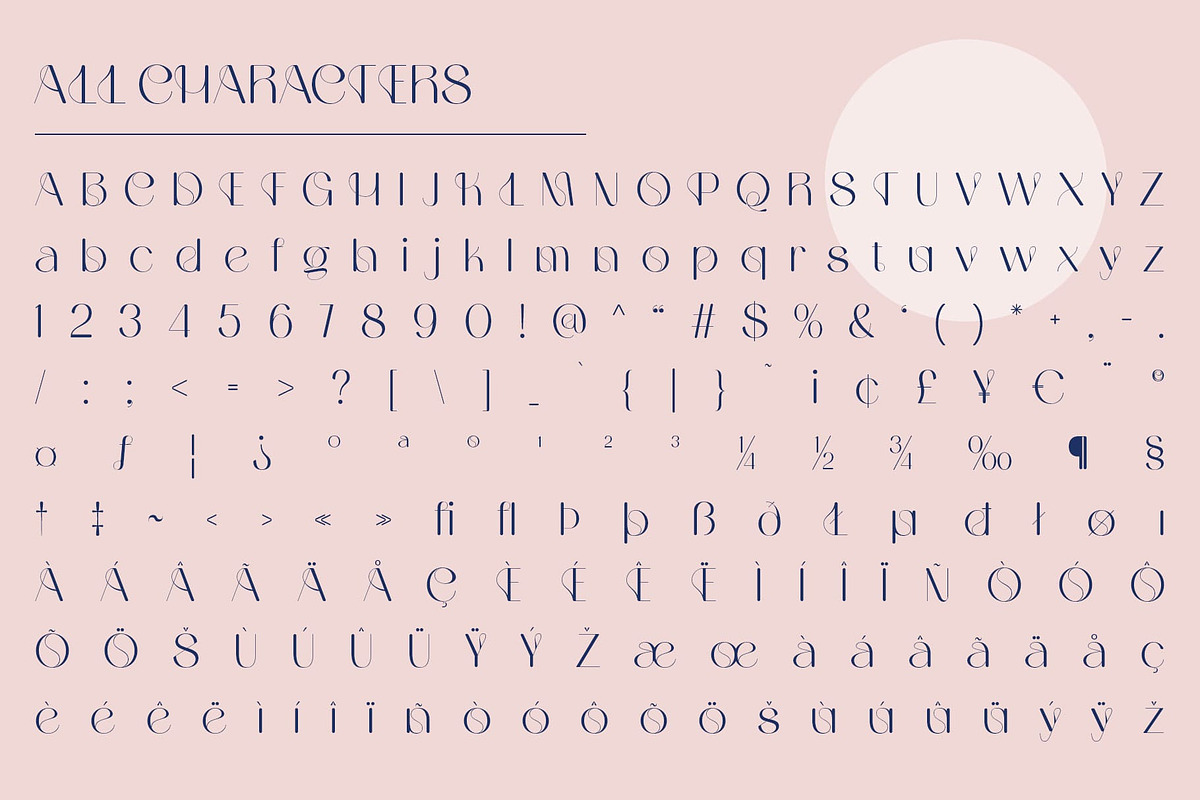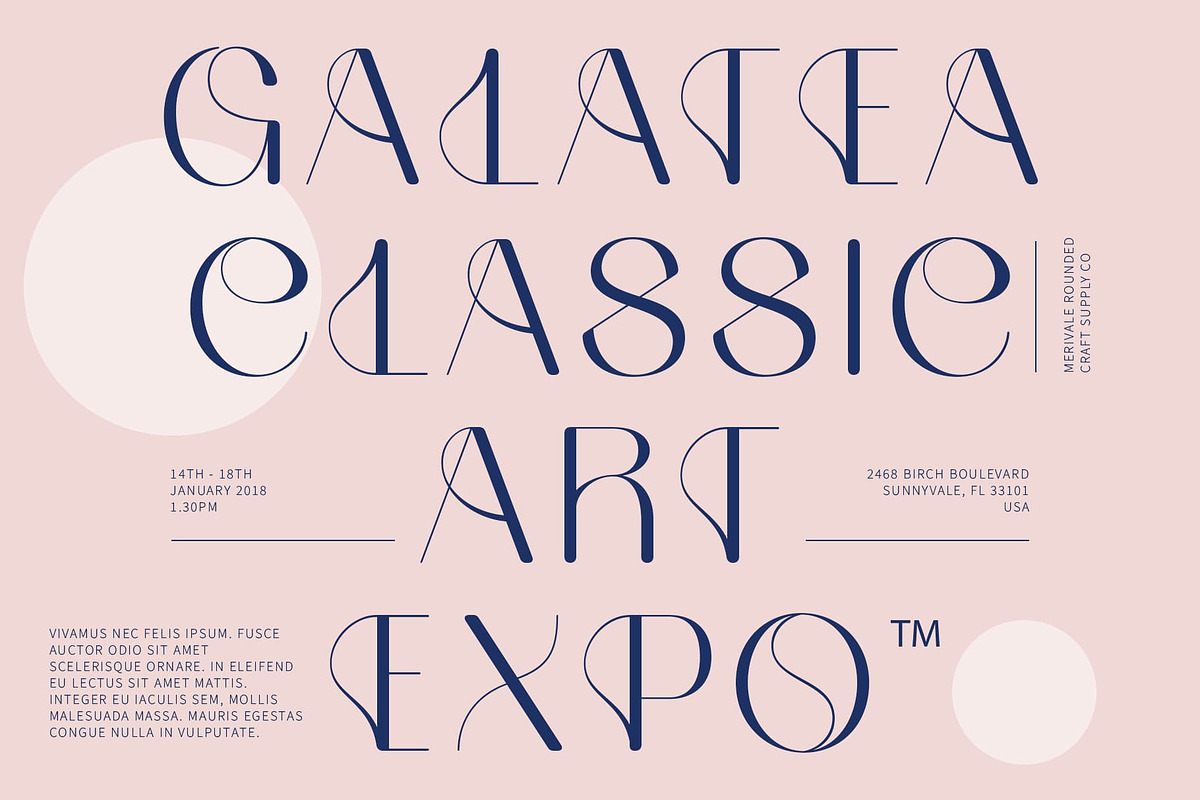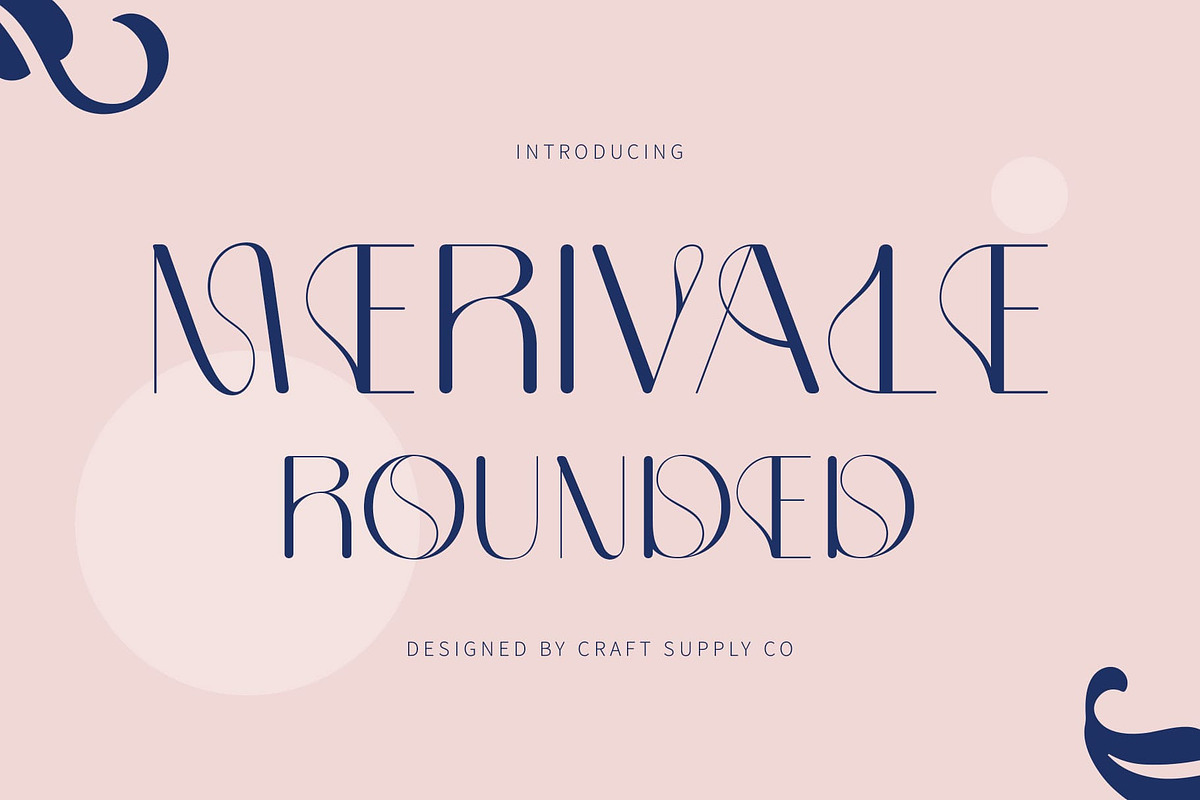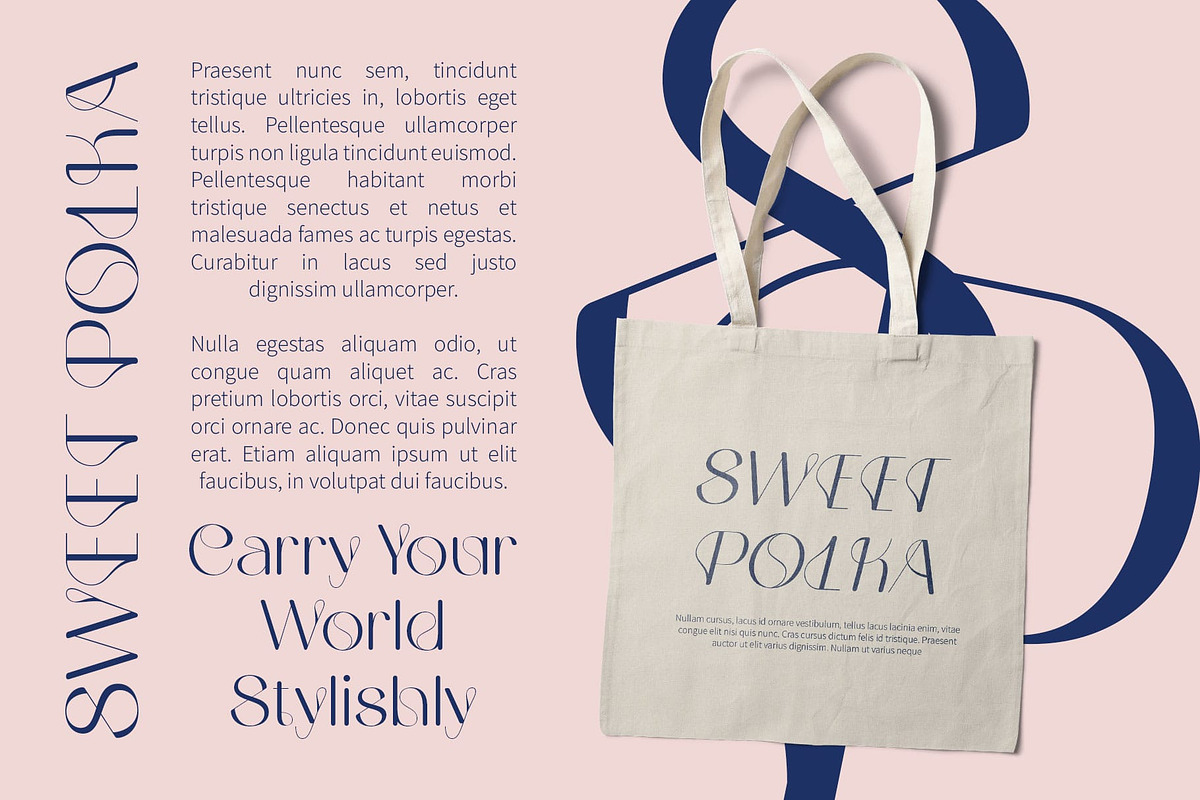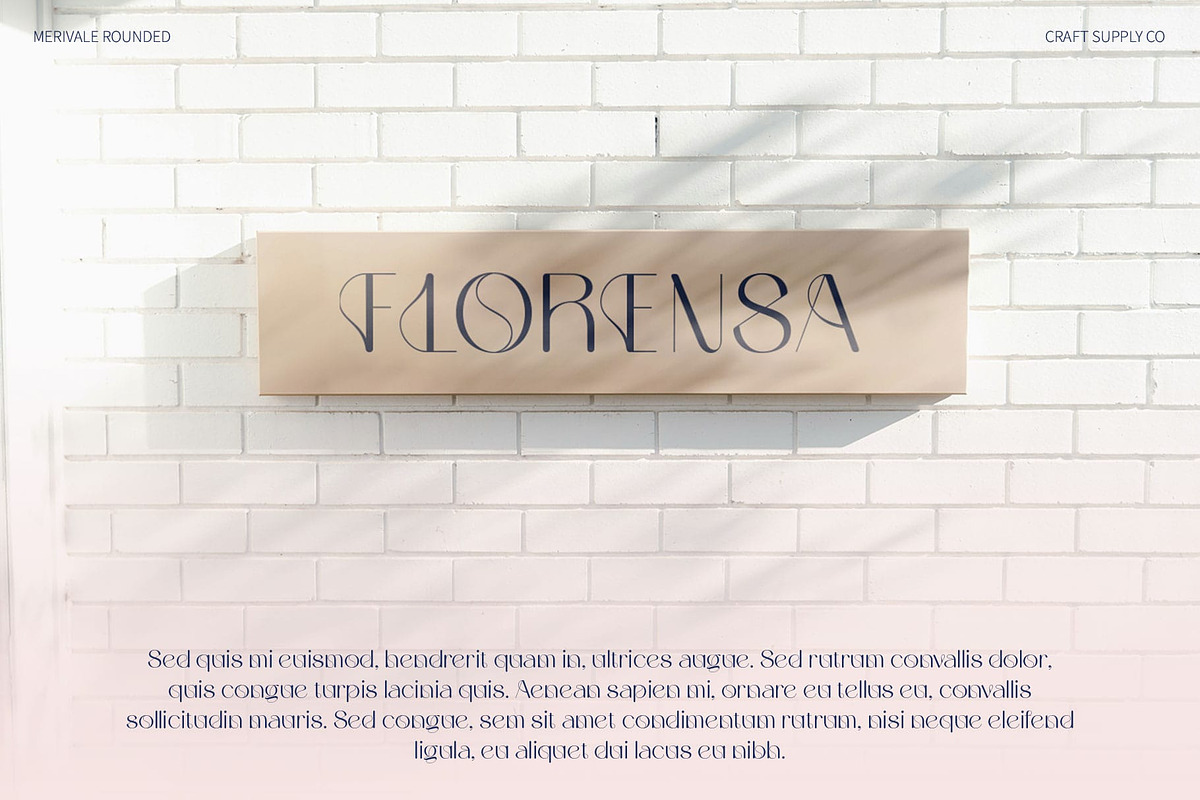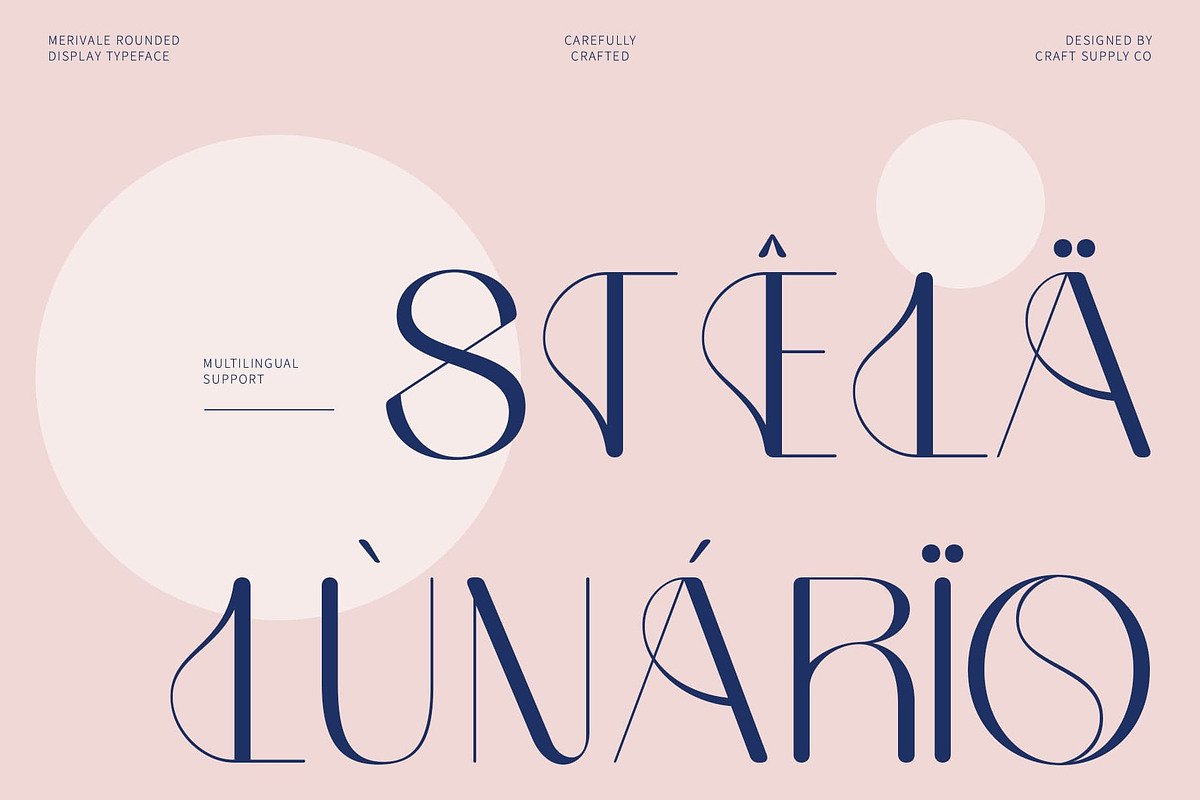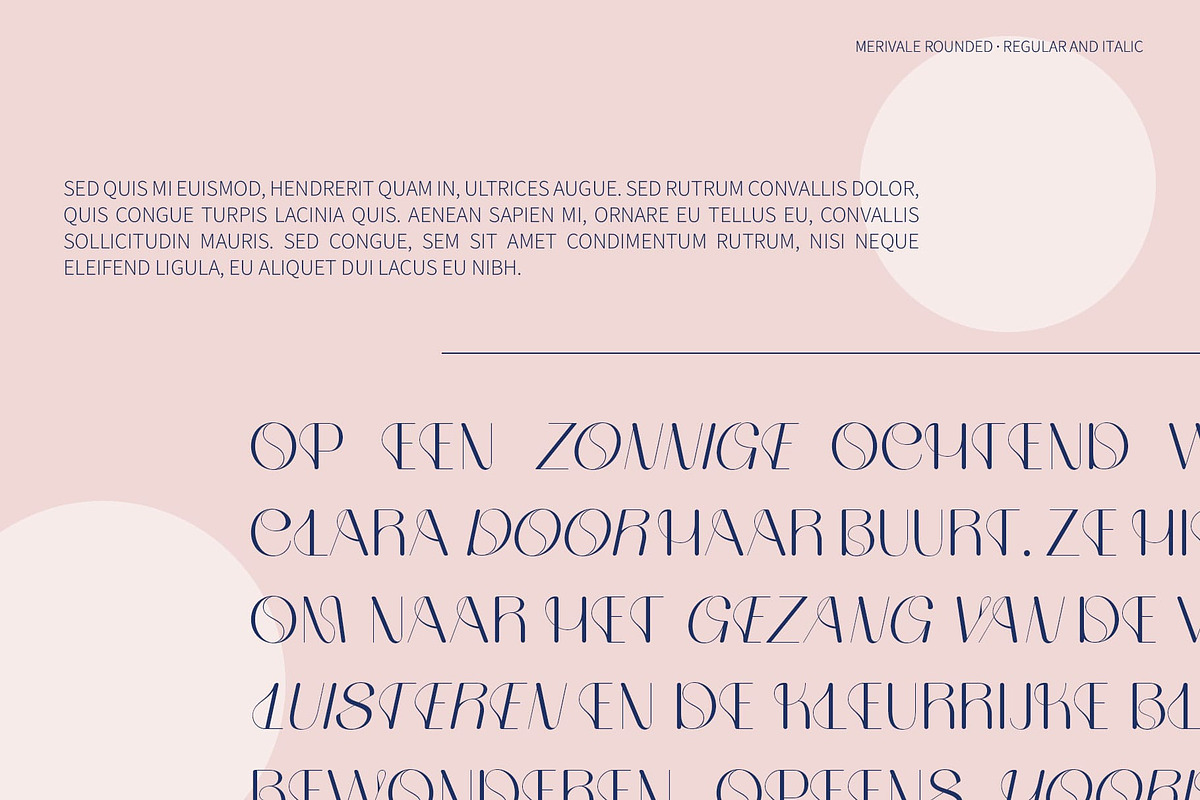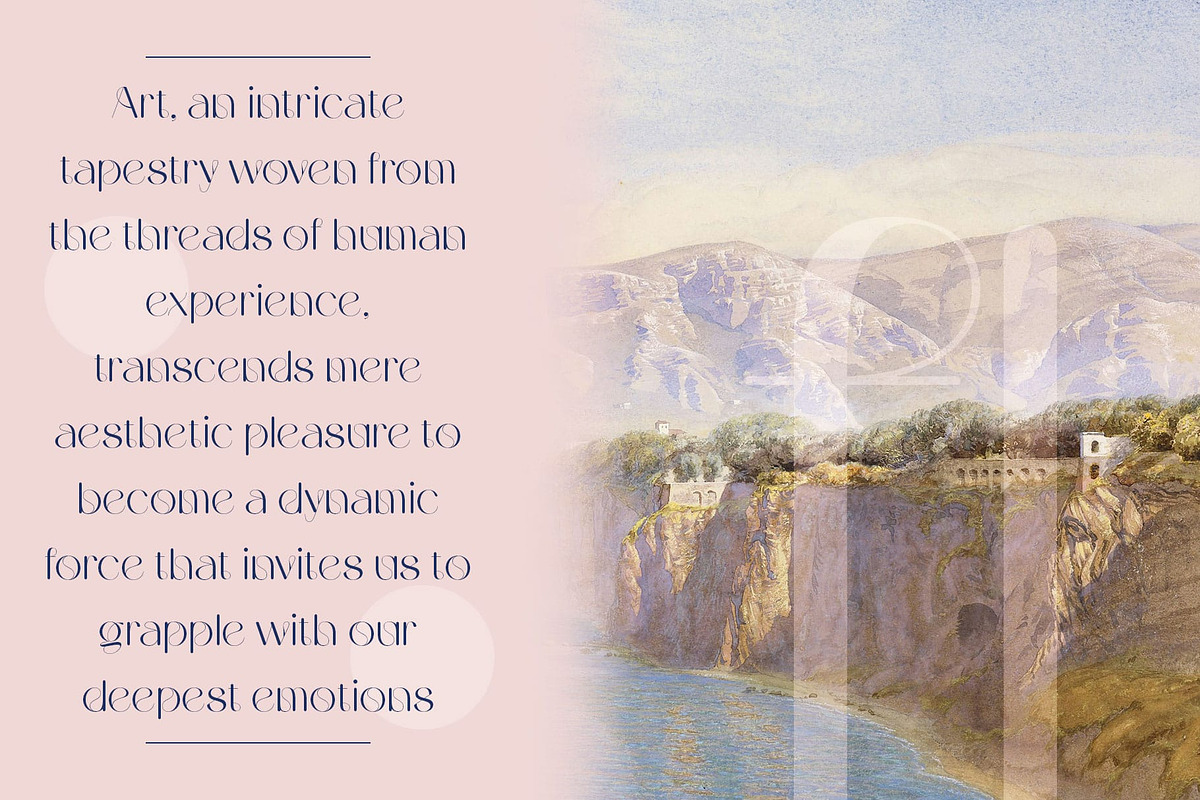
Merivale Rounded
Merivale Rounded – Elegant Art Nouveau Sans Serif Font: Where Nature Meets Modernity
Sophisticated Design Merivale Rounded is a modern sans serif display font that beautifully embodies the elegance of Art Nouveau with its rounded shapes and graceful design. Featuring smooth, curved lines complemented by nature-inspired ornaments, this font exudes sophistication and charm. Its refined aesthetic makes it an ideal choice for projects that require an artistic flair, ensuring that your designs leave a lasting impression.
Artistic and Elegant The fluidity of Merivale Rounded’s letterforms adds a touch of artistry to any project. Its elegant appearance is perfect for formal invitations, luxury branding, and promotional materials that aim to evoke a sense of class and refinement. This font seamlessly integrates modern aesthetics with classic elements, making it versatile for a range of creative applications.
Captivating Visual Appeal With its combination of contemporary design and artistic inspiration, Merivale Rounded captures attention without overwhelming the viewer. The harmonious blend of shapes and curves offers a striking visual appeal that enhances the overall design. Whether you’re crafting an elegant wedding invitation or a high-end brand identity, this font elevates the look and feel of your project.